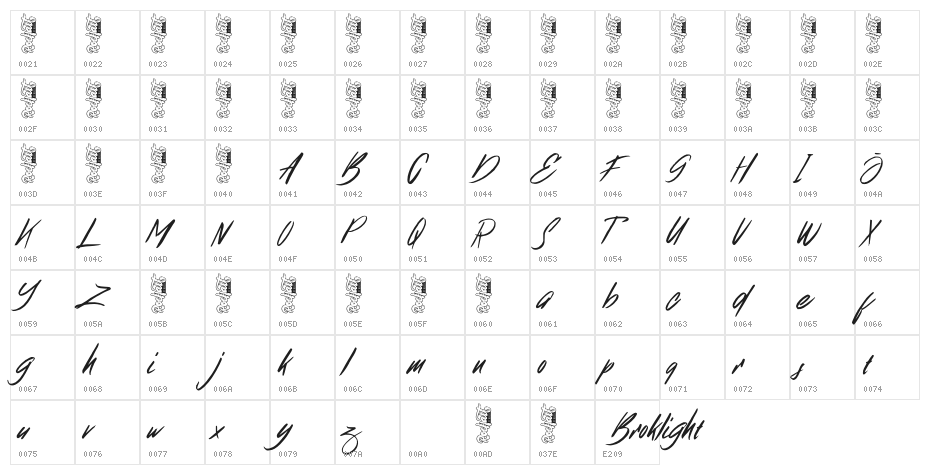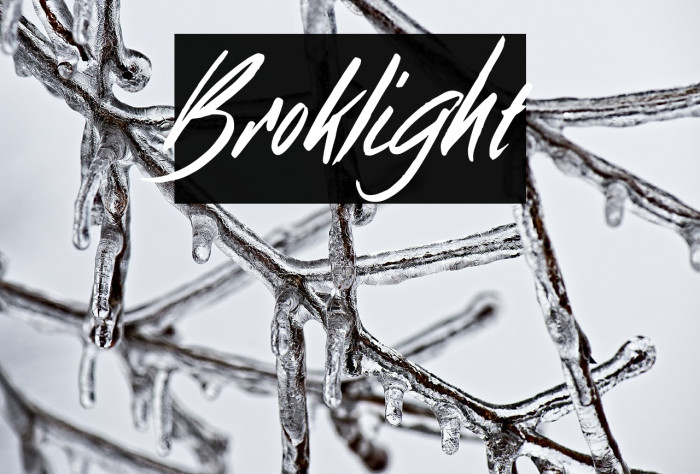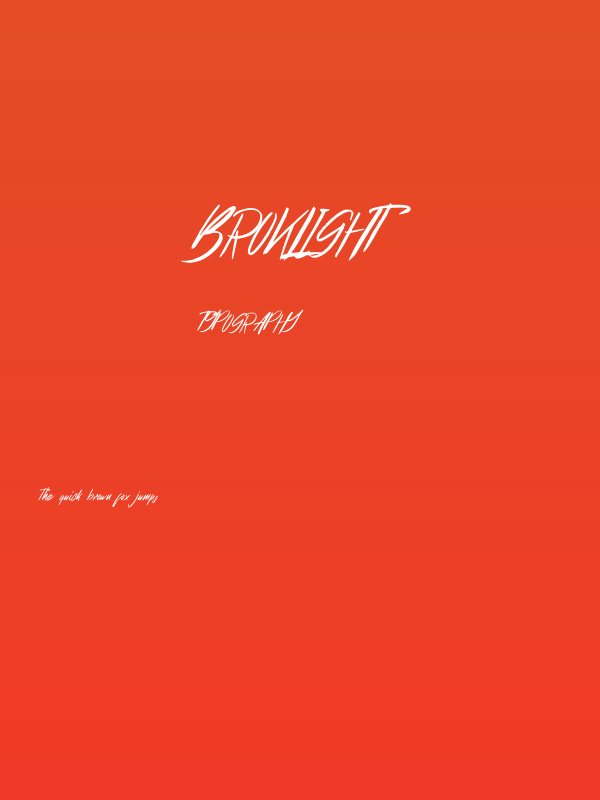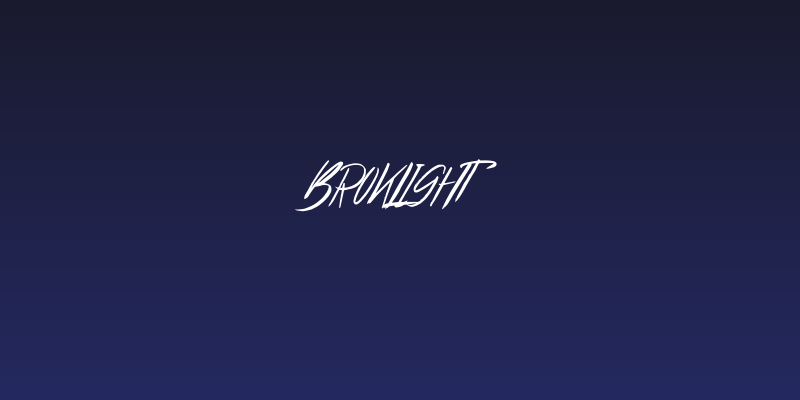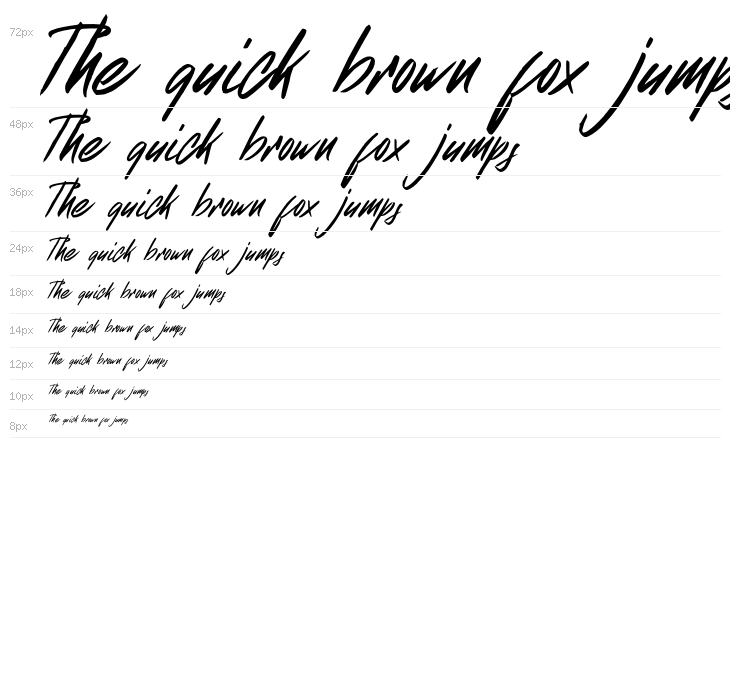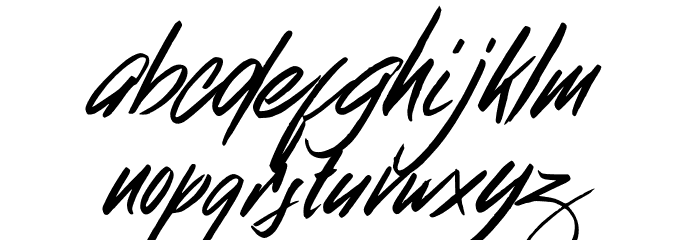
Broklight Font
Broklight Description
This font features a dynamic and energetic script style, characterized by its fluid, sweeping strokes and a sense of motion. The uppercase letters are bold and elongated, with a slight slant that adds to the overall sense of speed and elegance. The lowercase letters maintain the same fluidity, with some characters connecting seamlessly to create a cohesive and flowing appearance. The font's design is reminiscent of calligraphy, with a modern twist that makes it suitable for contemporary projects. The special characters are creatively integrated, maintaining the font's unique style while ensuring readability.
| Proposed Projects | Ideal for branding projects, logo design, wedding invitations, and any creative project that requires a touch of elegance and movement. |